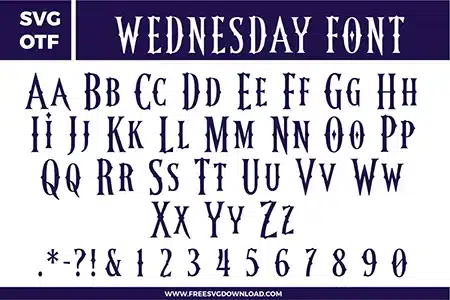
Intricate gothic fonts often have hundreds of tiny ‘nodes’ or anchor points. Running a ‘Simplify’ command reduces these points without losing the sharp look. Fewer nodes mean your machine’s processor can read the file faster, resulting in a cleaner cut and preventing the blade from ‘stuttering’ on complex corners.
Because this font is tall and narrow, you may need to manually adjust the ‘Letter Space’ (Kerning) in your software. If the letters look too crowded for your blade to pass between them, increase the spacing by 0.1 increments to ensure the vinyl doesn’t tear during the weeding process.
Always perform a test cut when working with sharp serifs like these. If the tiny points lift off the backing during the cut, your pressure is likely too high or your blade is dull. A test cut saves you from wasting an entire sheet of expensive specialty vinyl like holographic or glow-in-the-dark.
If you are pressing this font onto busy patterned fabric, create a 0.06-inch ‘External Offset’ in a solid contrasting color. This creates a ‘shadow’ or border layer. By pressing the solid offset first and the font on top, you ensure the intricate gothic details remain legible against the background.